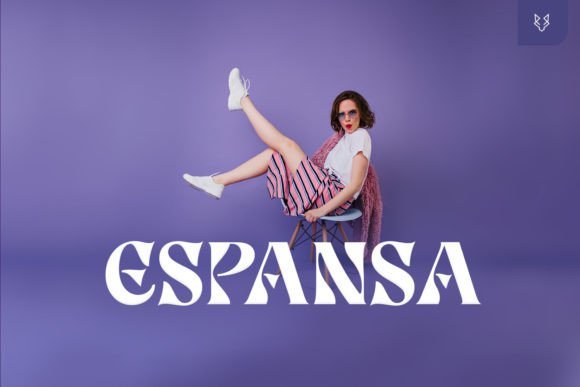
Introduction to Espansa Font
Introducing β€œEspansa,” a font meticulously crafted to redefine the essence of modernity in typography.
Tailored specifically for fashion brands, posters, and magazines, Espansa embodies a harmonious fusion of sleek aesthetics and timeless elegance With its clean lines and precise curves, Espansa captivates the eye and commands attention, making it the perfect choice for brands aiming to convey sophistication and style.
Key Features of Espansa Font
Why Choose Espansa Font?
Espansa Font offers exceptional quality and versatility, making it a valuable addition to your design toolkit. Whether you’re creating for personal projects or commercial use, Espansa Font delivers professional results.